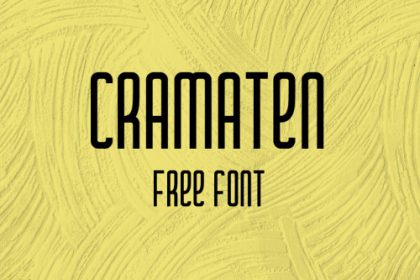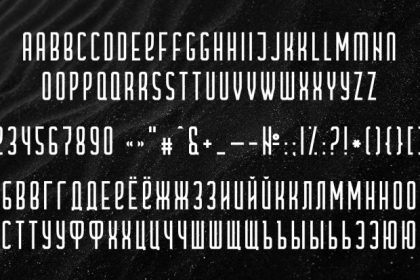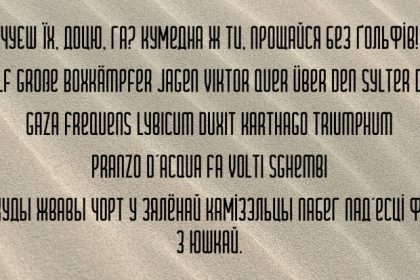
Cramaten Free Font is a free condensed typeface with multilingual support. Language support: English, Russian, Azerbaijani, Basque, Bulgarian, Belarusian, Greek, Spanish, Italian, Latin, German, Portuguese, Ukrainian, French, Dutch, Afrikaans, Albanian, Bosnian, Bulgarian, Estonian, Macedonian, Serbian, Turkish, Zulu.